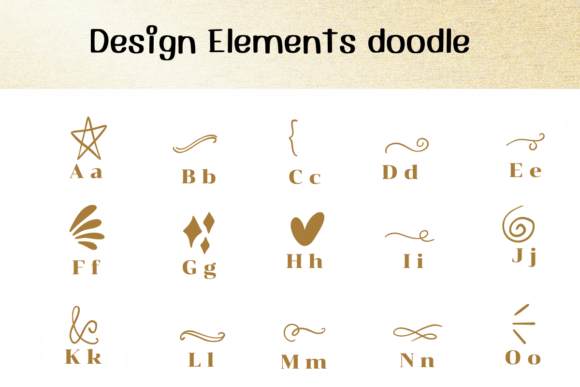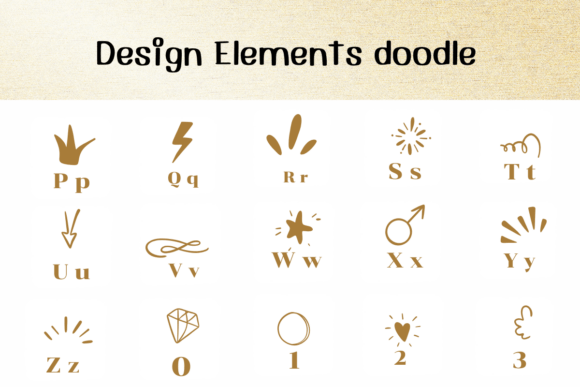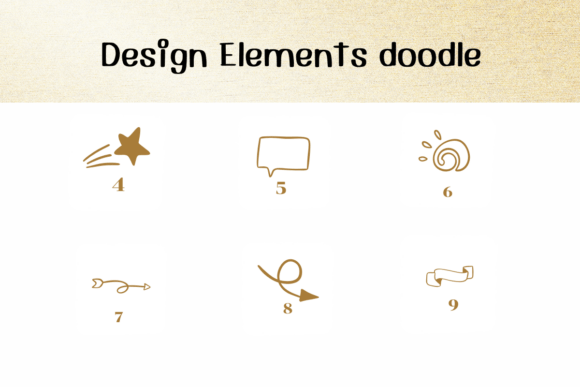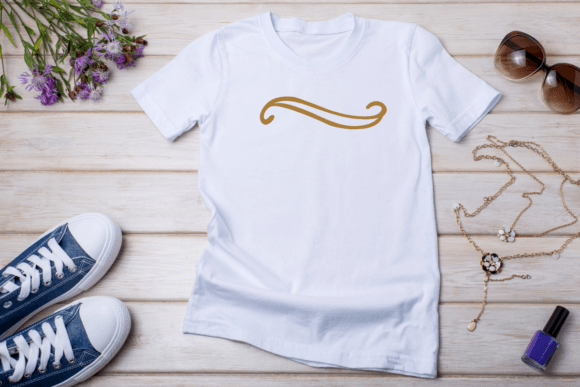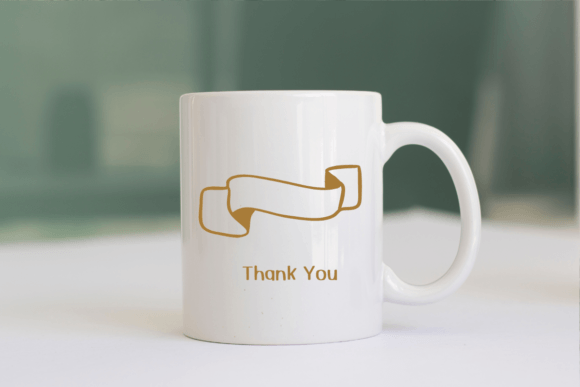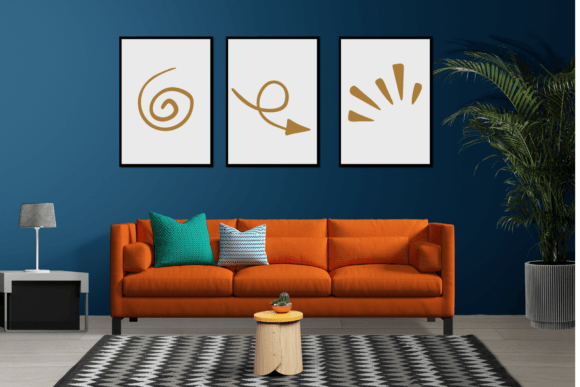
The Ultimate Design Element: Doodle Font for Creative Projects
What is Design Elements Doodle Font?
The Design Elements Doodle Font is a dingbats font with a festive theme, perfect for enhancing creative projects such as wedding invitations, DIY crafts, decorations, logos, and many other innovative ideas. This font is designed to add a touch of playfulness and whimsy to your designs, making it an excellent choice for crafters, designers, and creative hobbyists.
- ✨ Festive and playful theme that’s perfect for seasonal designs
- ✅ Easy to use and pairs well with a variety of fonts
- 🎉 Extensive character set, including glyphs and stylistic alternates
- 💕 Beautifully crafted to add a touch of elegance to your designs
While the Design Elements Doodle Font is an excellent choice for many projects, there are a few things to keep in mind:
- ⚠️ Limited use in formal or professional designs, as it may come across as too playful
- 🤔 May require additional design elements to balance out the look
The Design Elements Doodle Font was created with the intention of providing a unique and playful font for creative projects. While the actual designer may not be well-known, it’s clear that they drew inspiration from festive and celebratory themes. The result is a font that’s both elegant and whimsical, perfect for adding a touch of personality to your designs.
| Font Name | Design Elements Doodle Font |
| Author | Ketsarin |
Q: What type of projects is the Design Elements Doodle Font best suited for?
A: The Design Elements Doodle Font is perfect for creative projects such as wedding invitations, DIY crafts, decorations, logos, and more.
Q: Is the Design Elements Doodle Font easy to use?
A: Yes, the Design Elements Doodle Font is easy to use and pairs well with a variety of fonts.